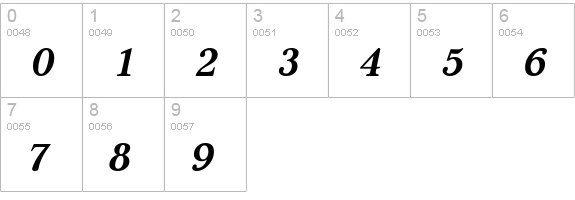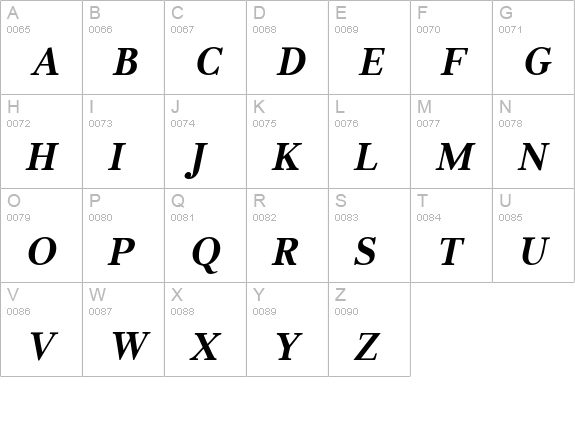
JabcedHy BoldItalic font is a stunning and dynamic typeface that combines boldness with a touch of elegance. Its unique design features the perfect balance between thick and thin strokes, creating a visually captivating look. This font is perfect for adding a touch of sophistication and modernity to any project. The BoldItalic variant of JabcedHy font adds an extra level of emphasis and style to your text. It is ideal for headlines, titles, and any design element that requires a bold and eye-catching appearance. Whether you are designing a logo, creating a poster, or working on a branding project, this font will instantly elevate your design to the next level. What makes JabcedHy BoldItalic even more appealing is that it is freely available to download at FontsMarket.com. You can easily access this font without any cost, making it a valuable resource for designers and creatives who are looking to add a unique touch to their work without breaking the bank. With its versatility and striking aesthetics, JabcedHy BoldItalic font is a must-have for any designer's toolkit. Its modern and bold look will surely make your designs stand out from the crowd. So, why wait? Head over to FontsMarket.com and download this amazing font for free today!